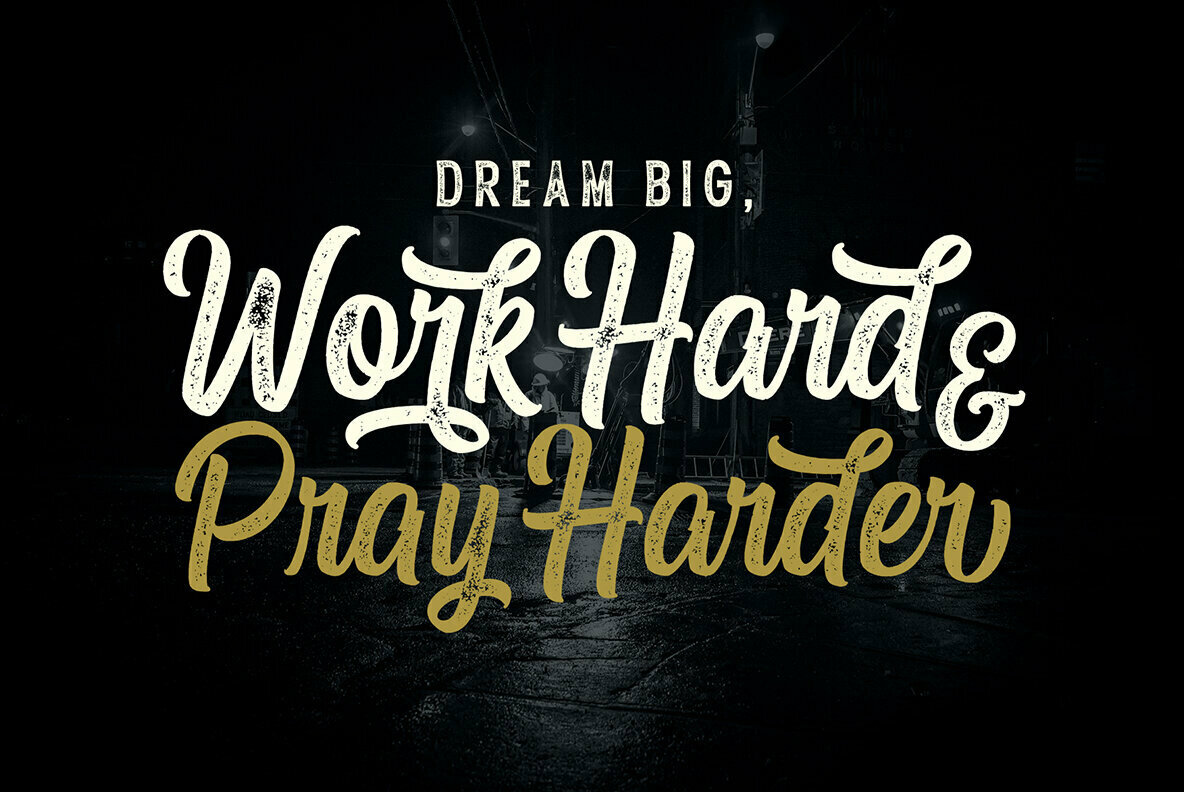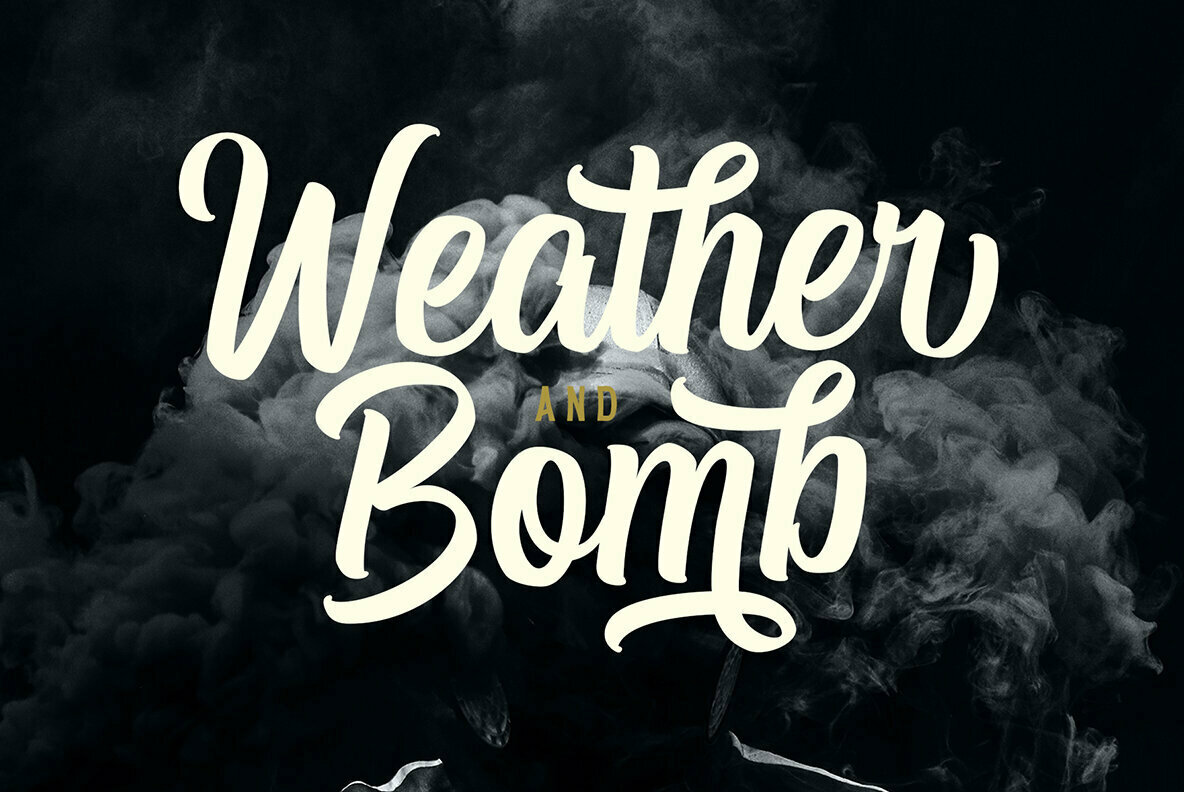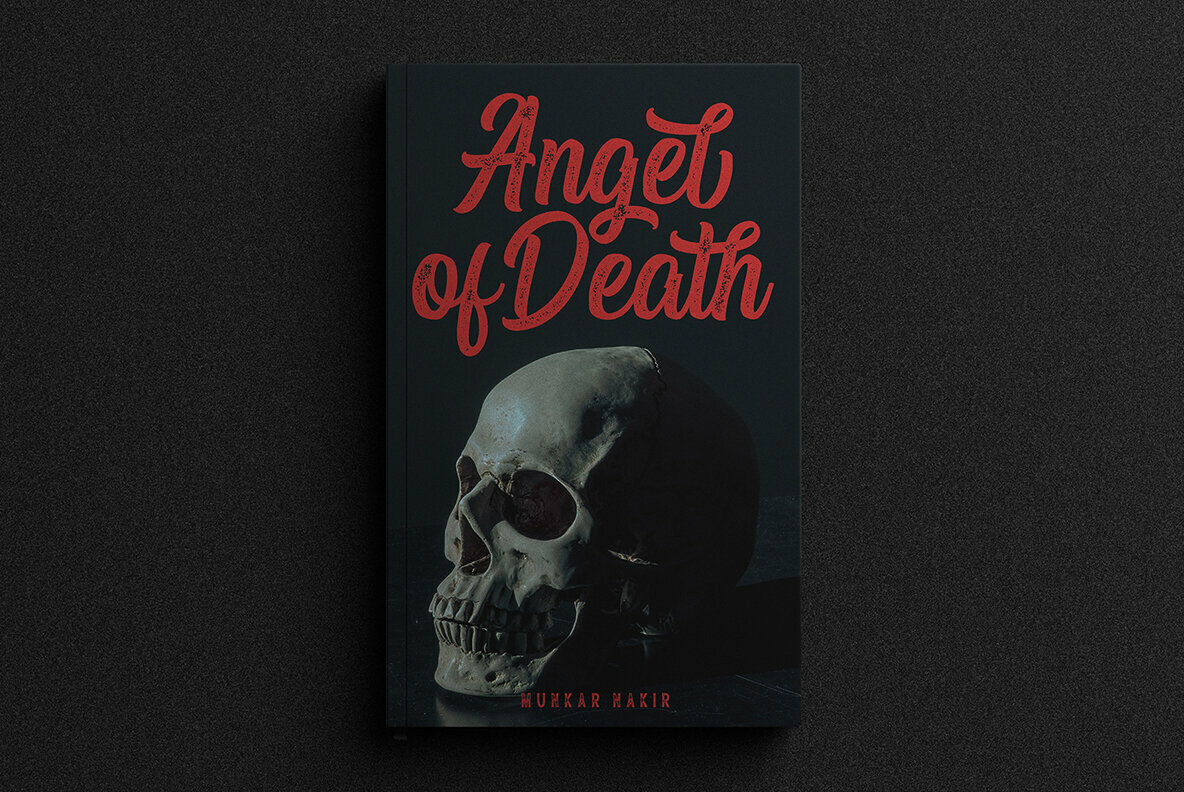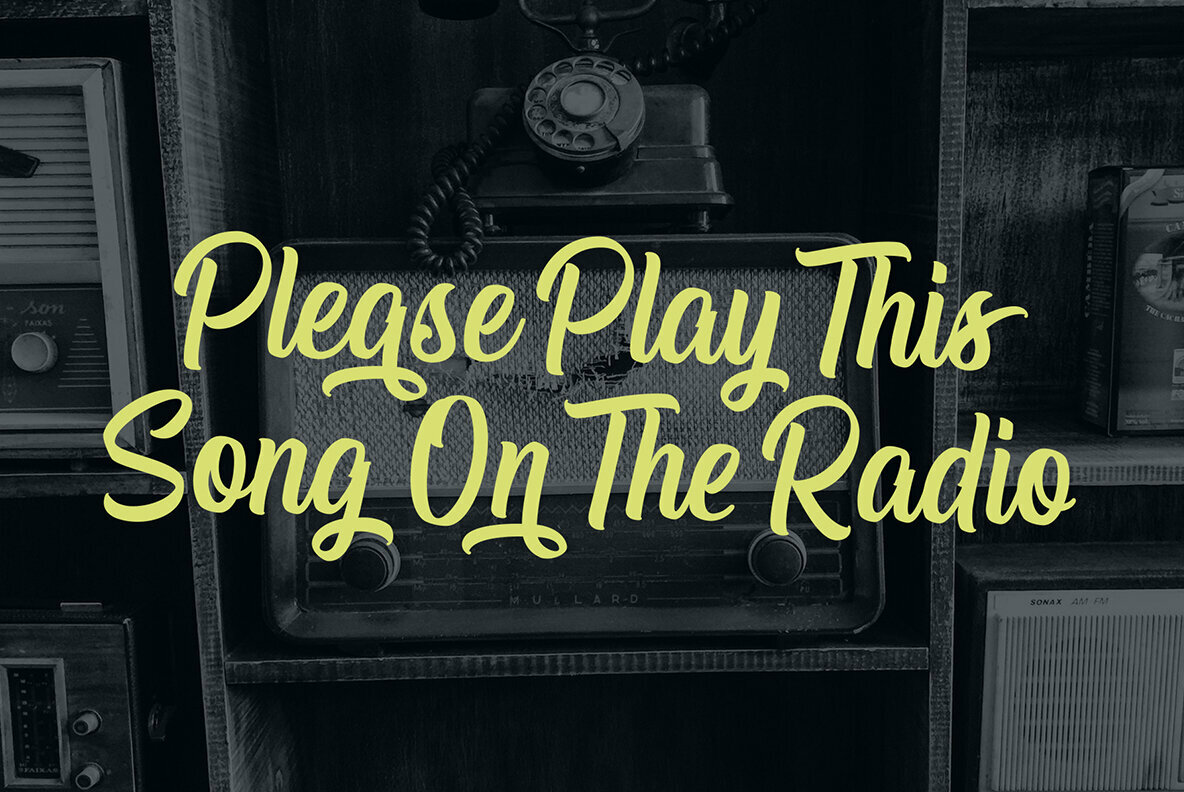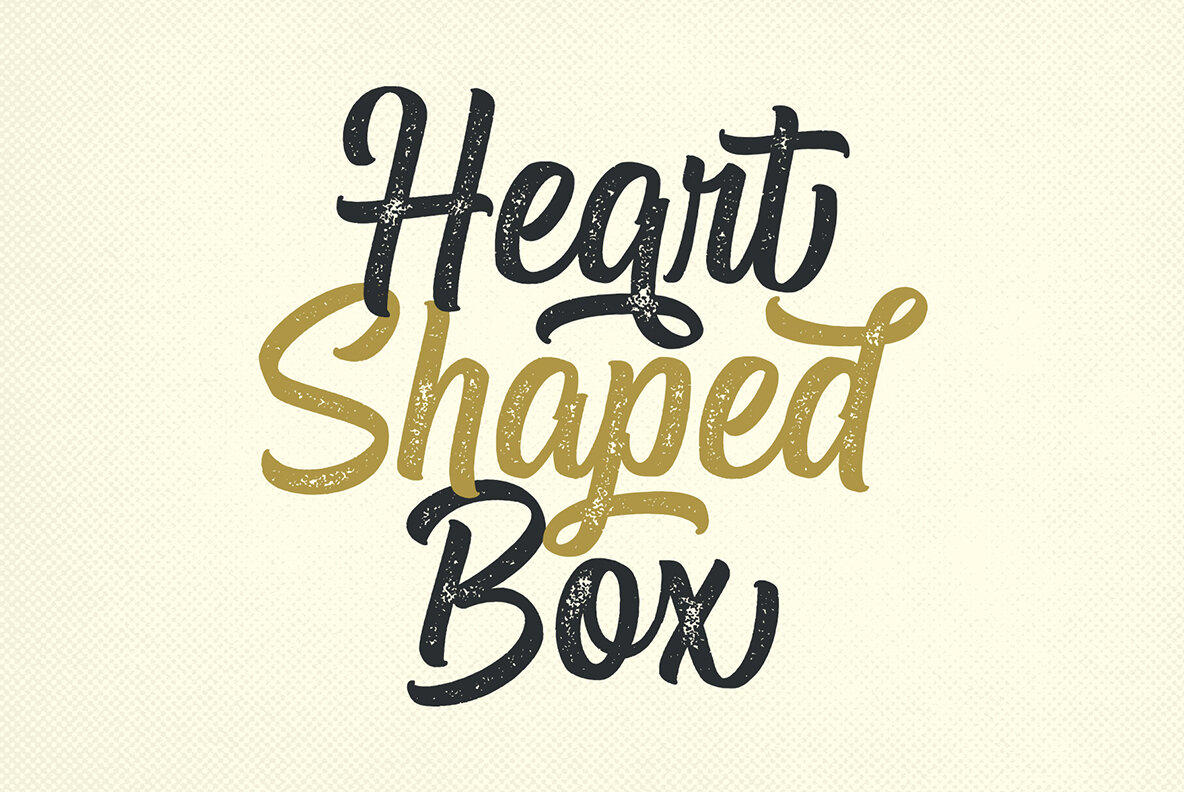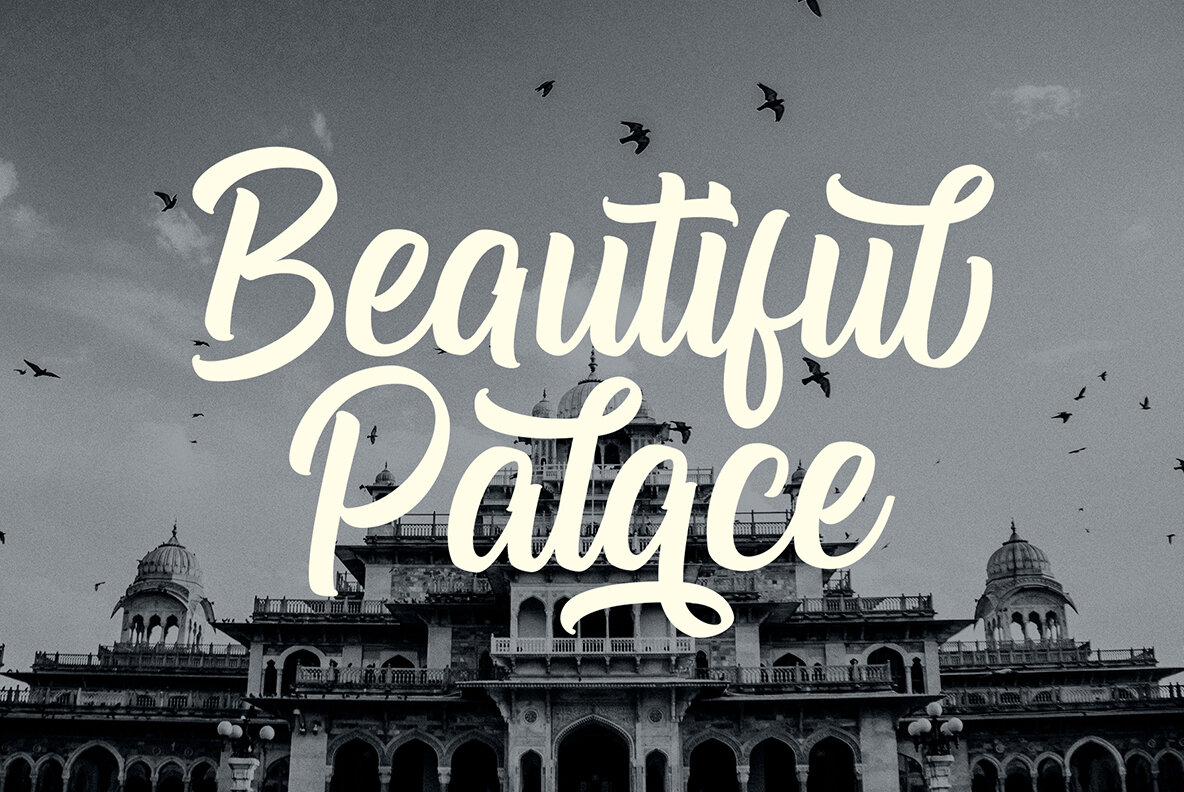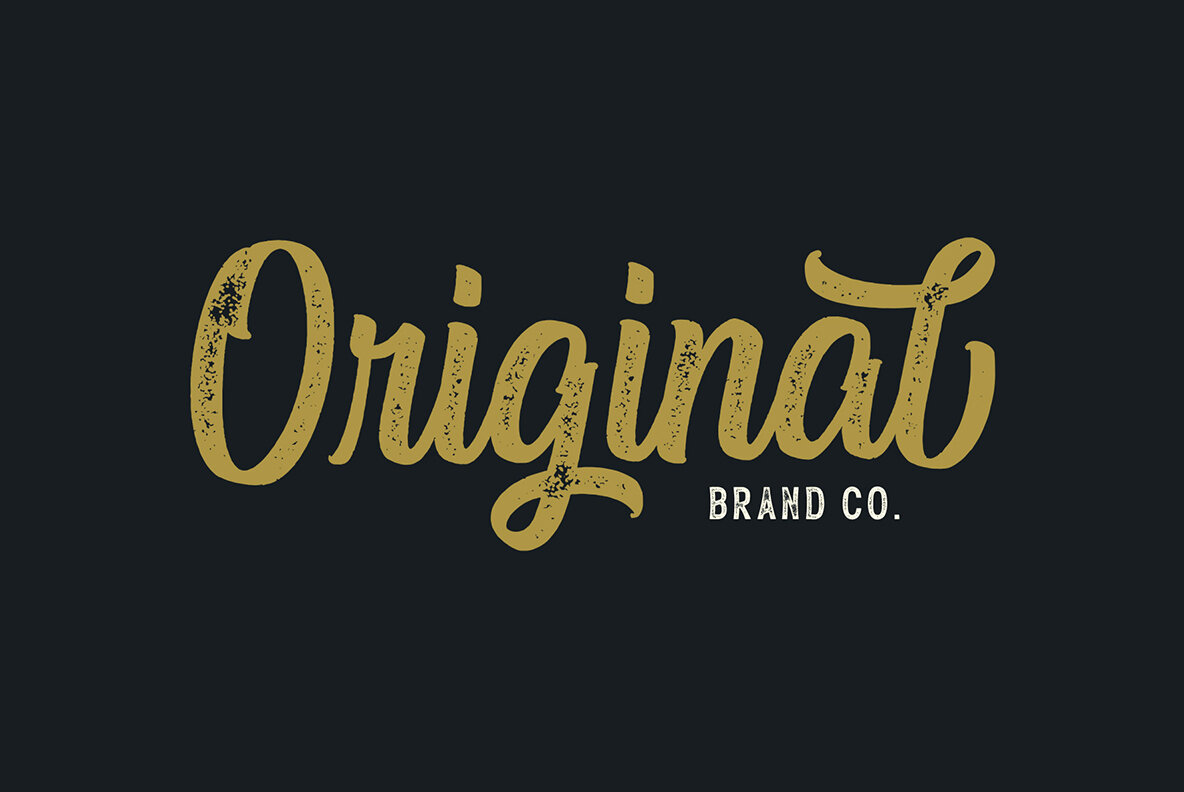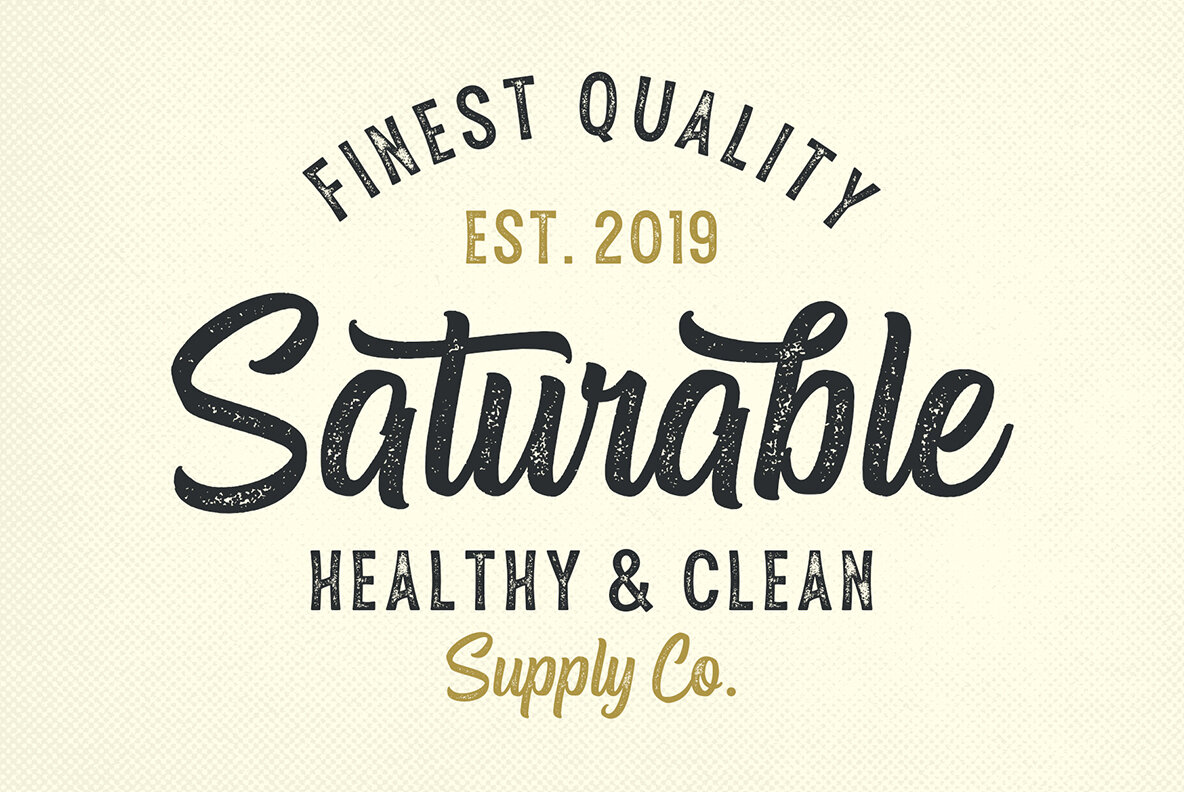
Under Weak Font
Under Weak is an amazing and bold script, suitable for a large number of designs. This font has two styles, clean and rough. With two styles you can choose according to the project you're working on.